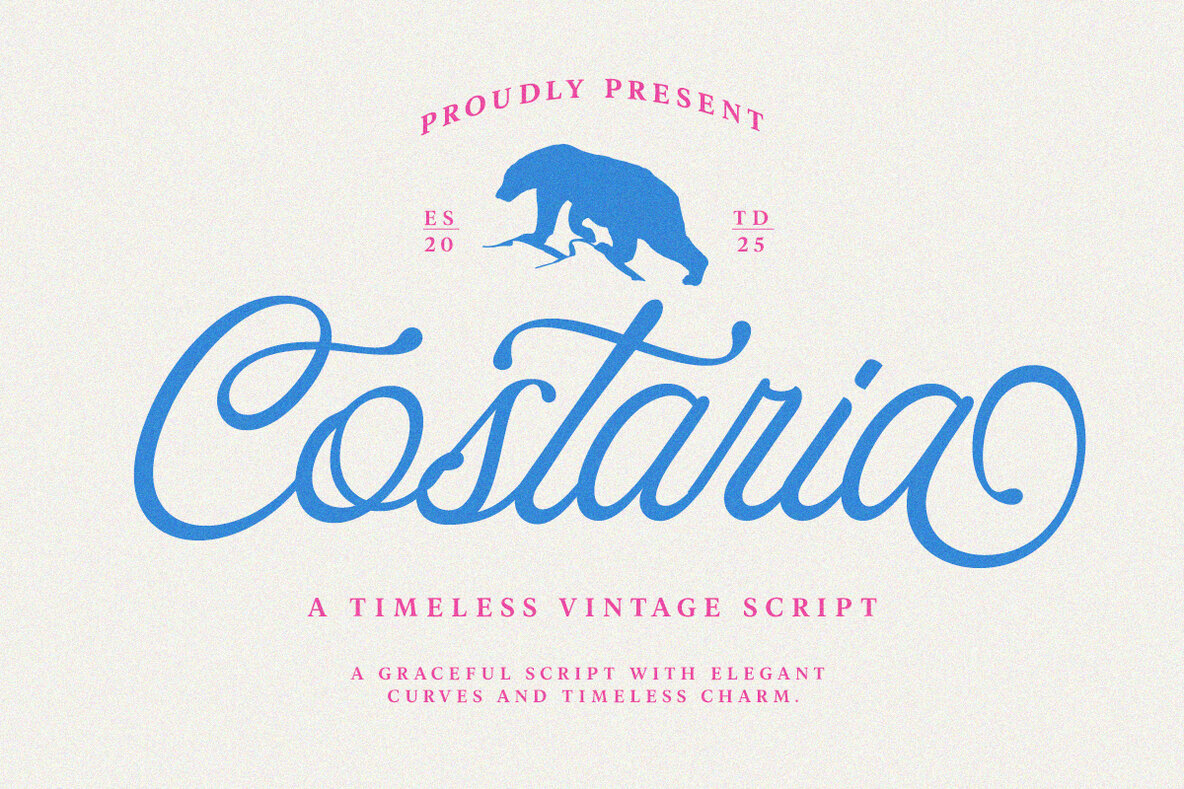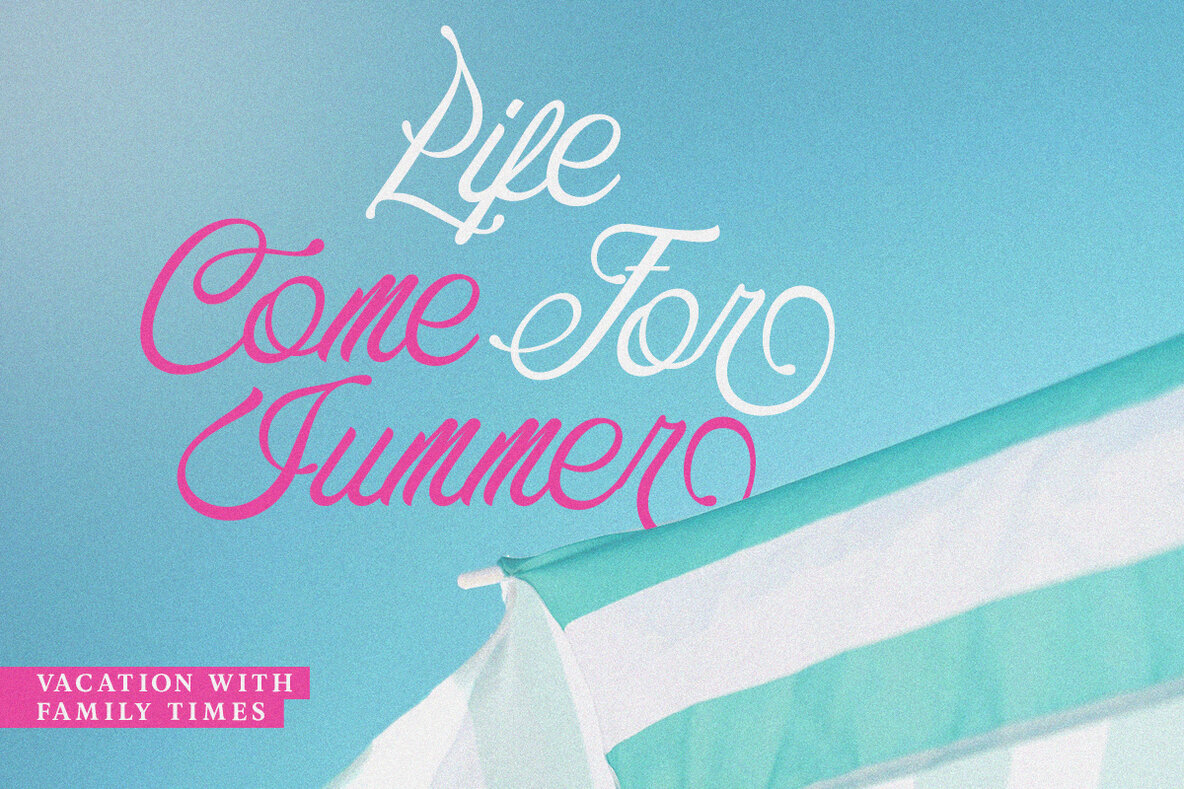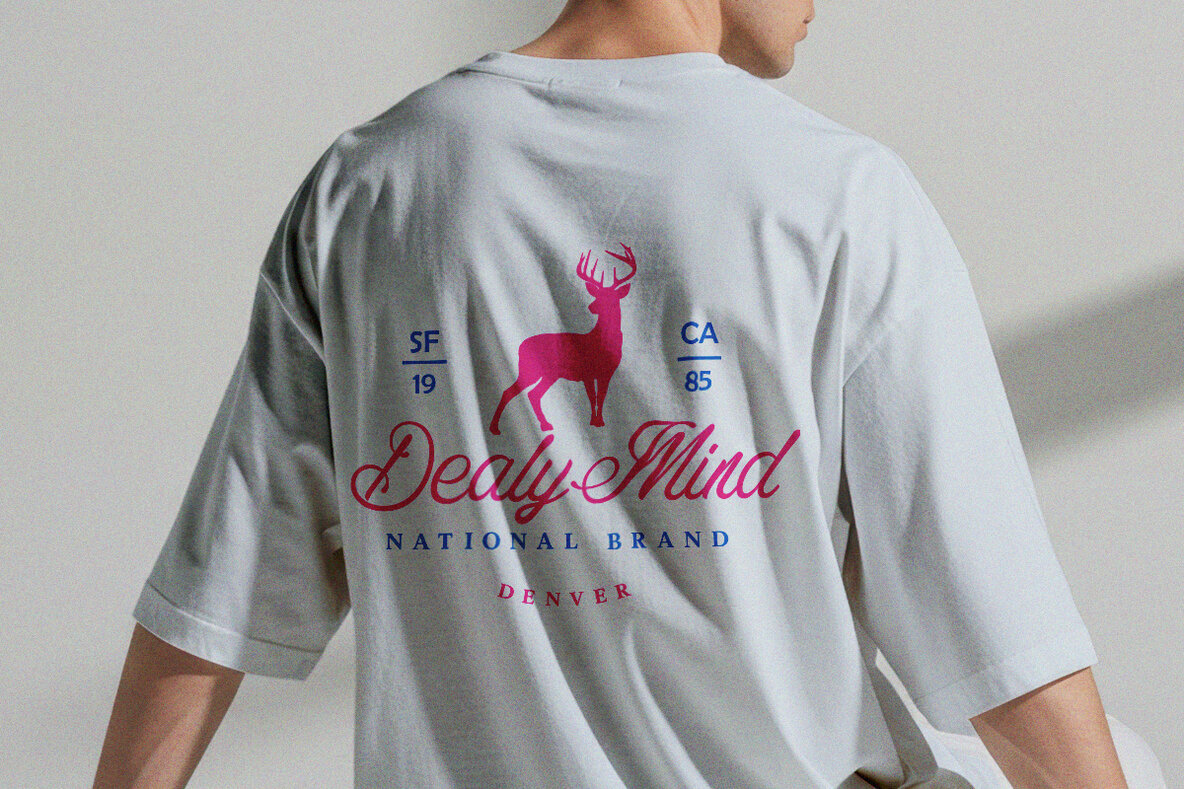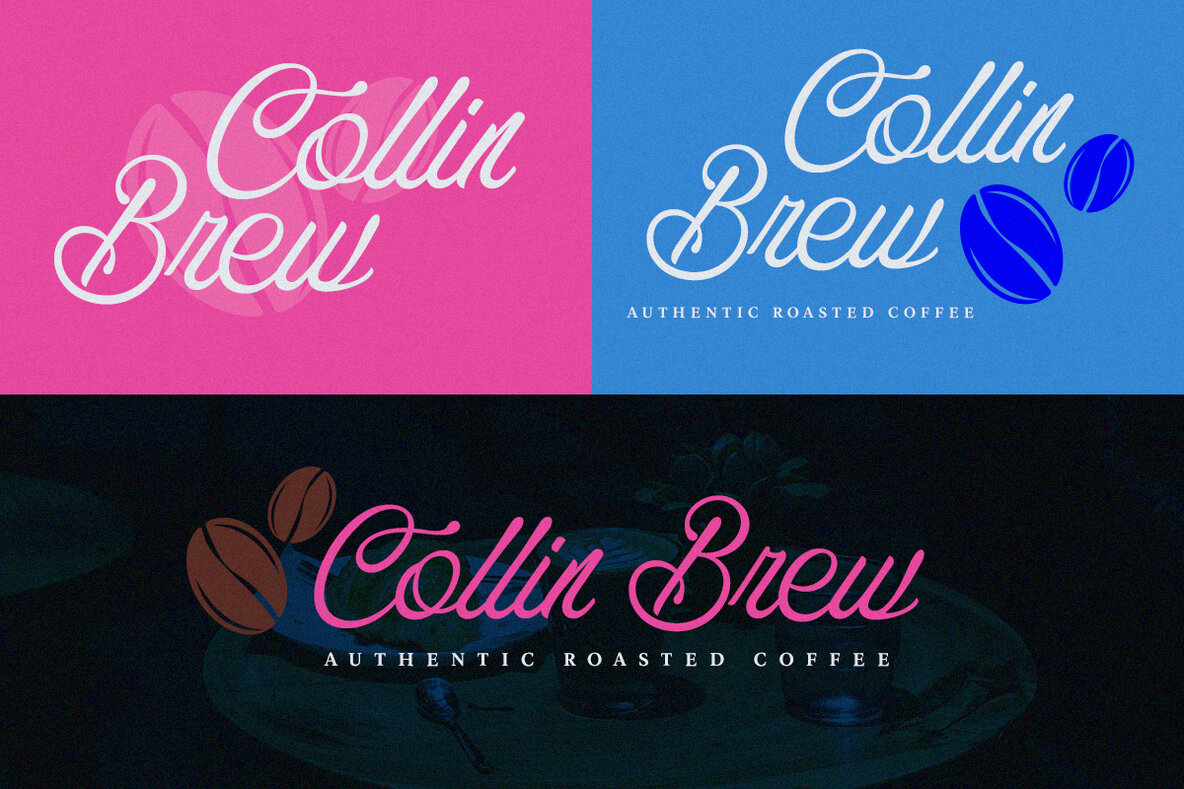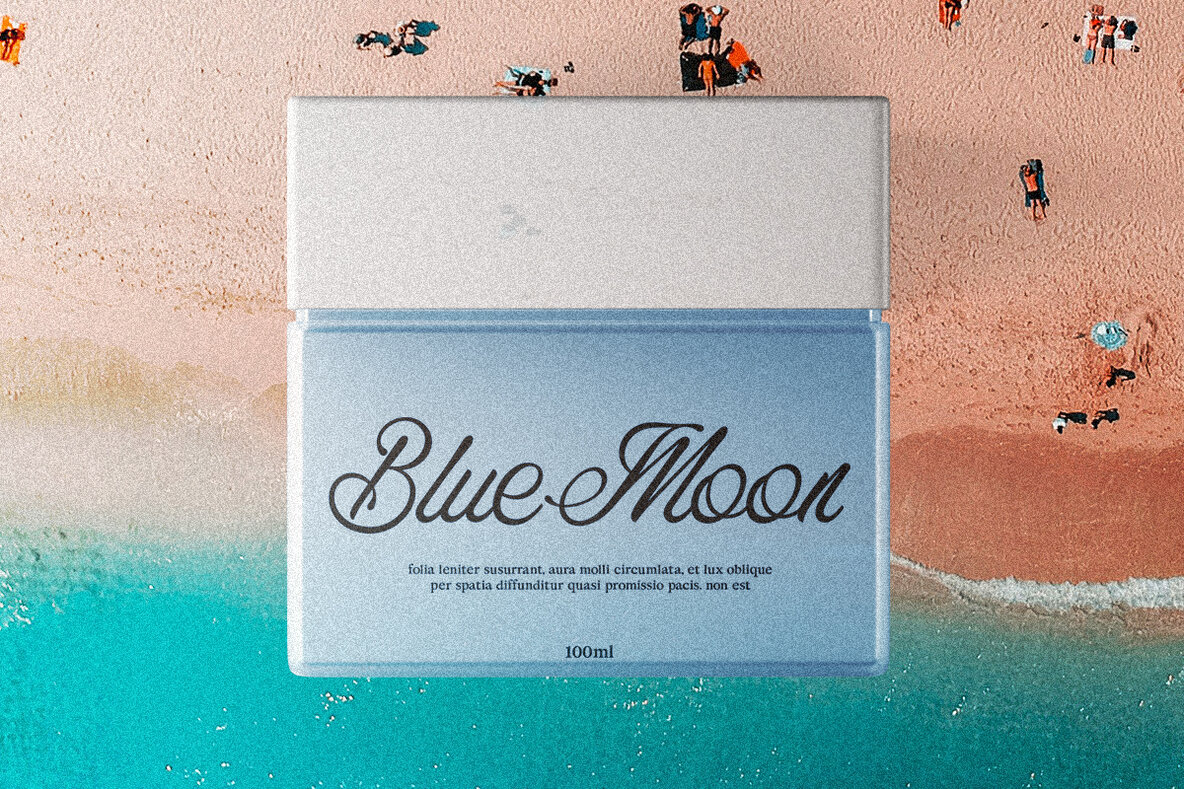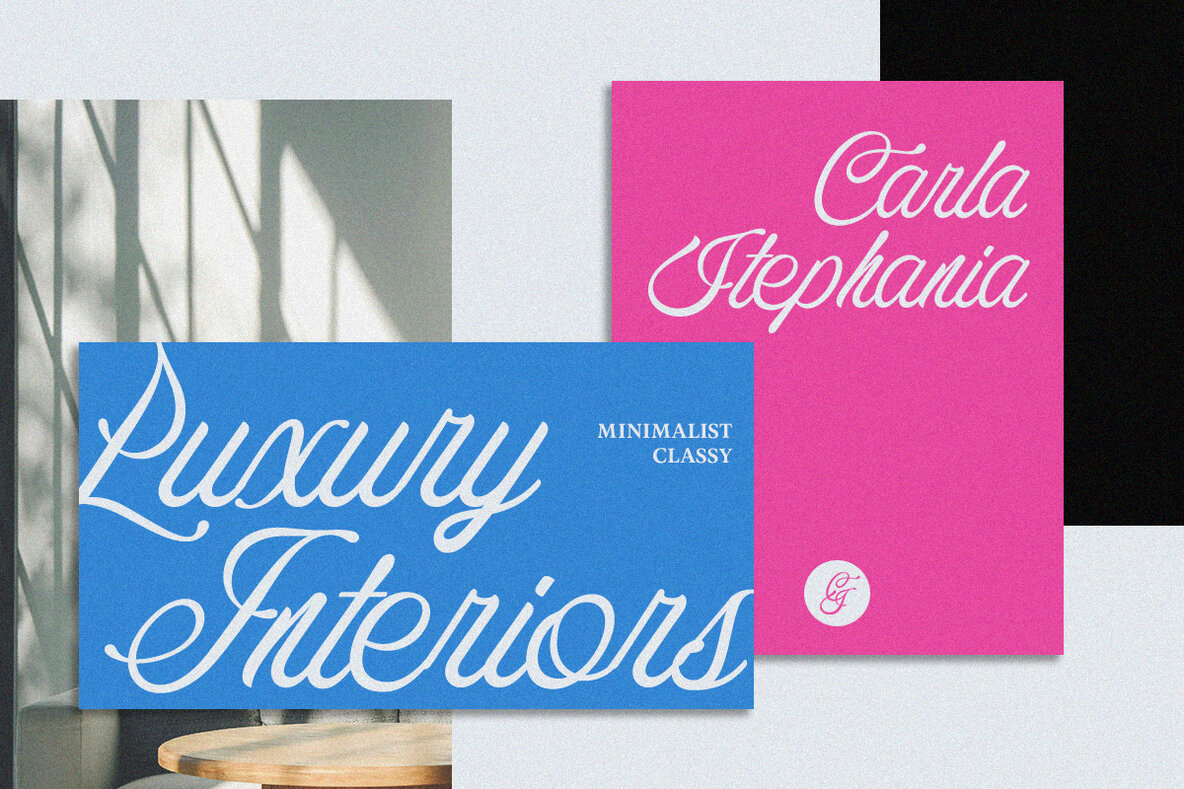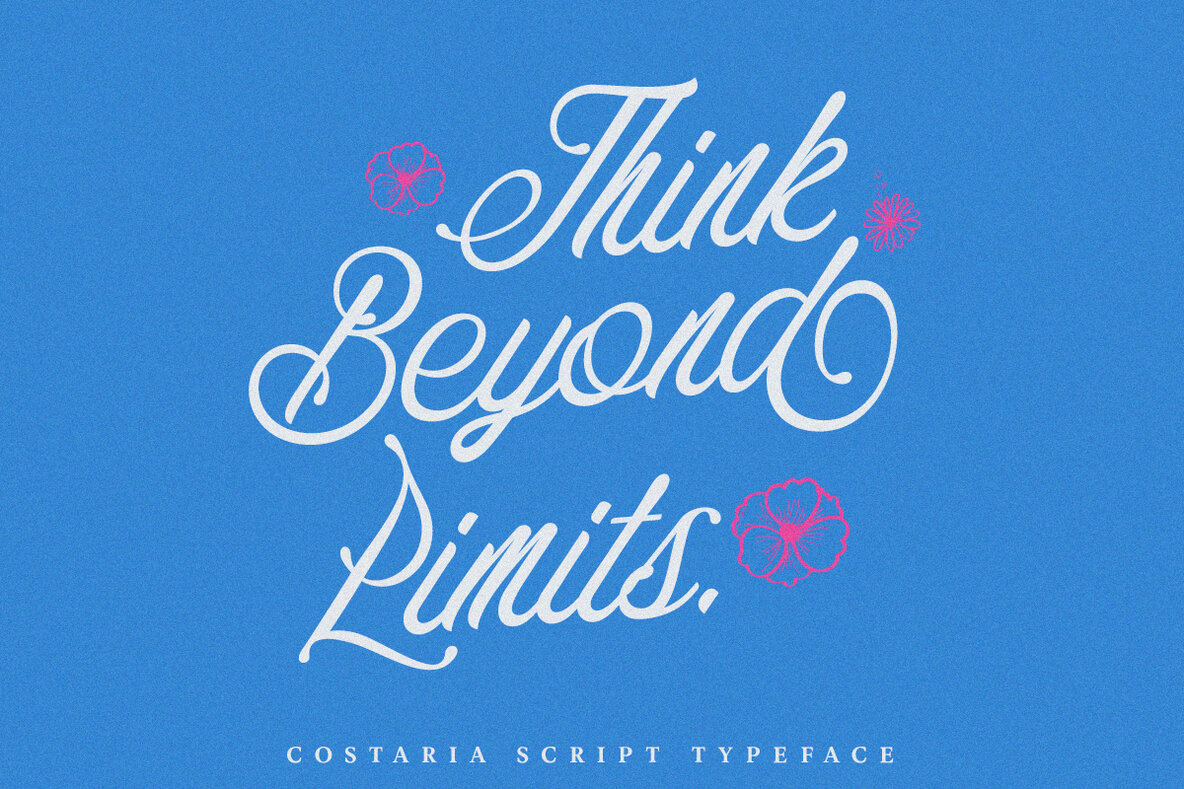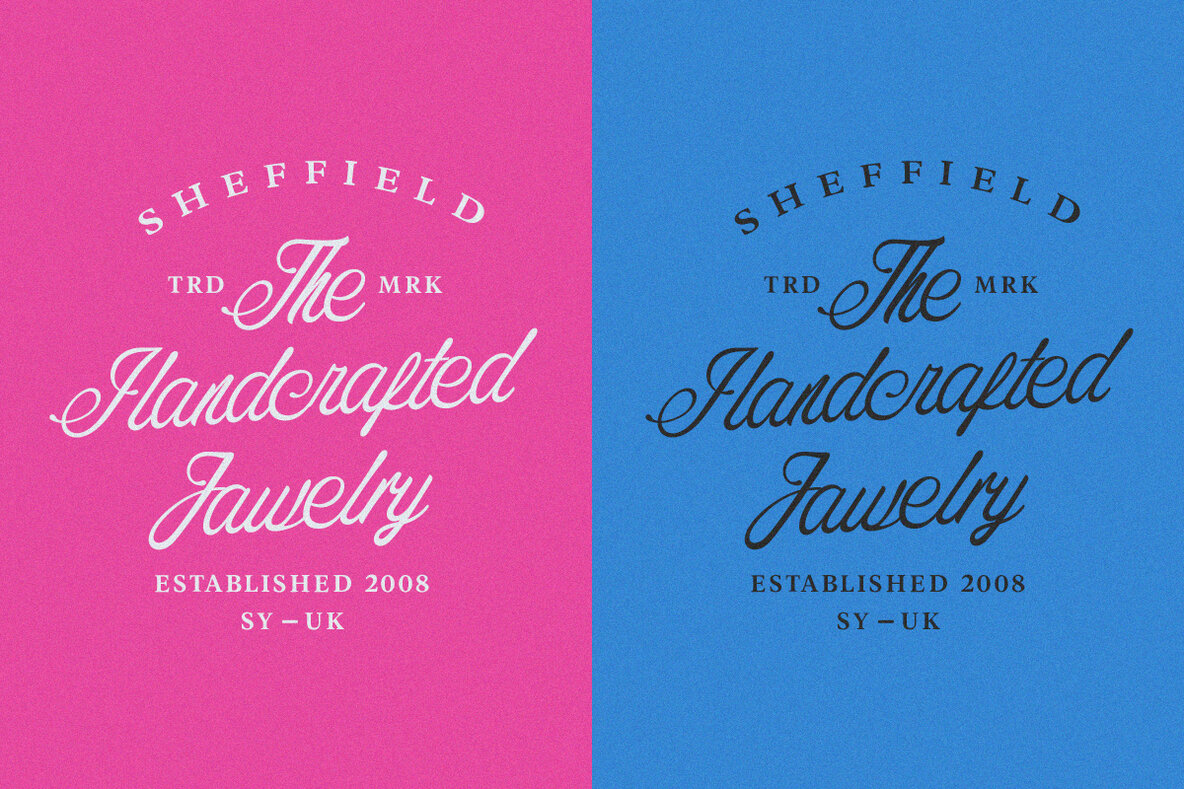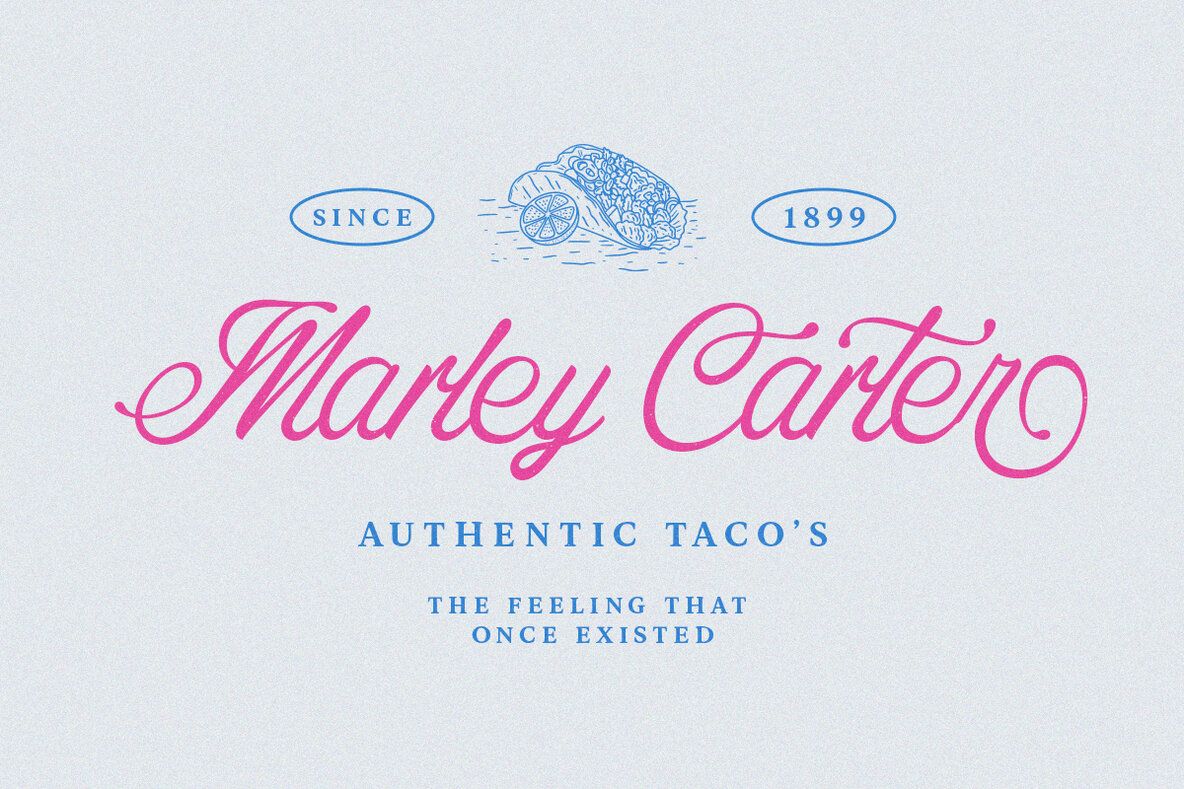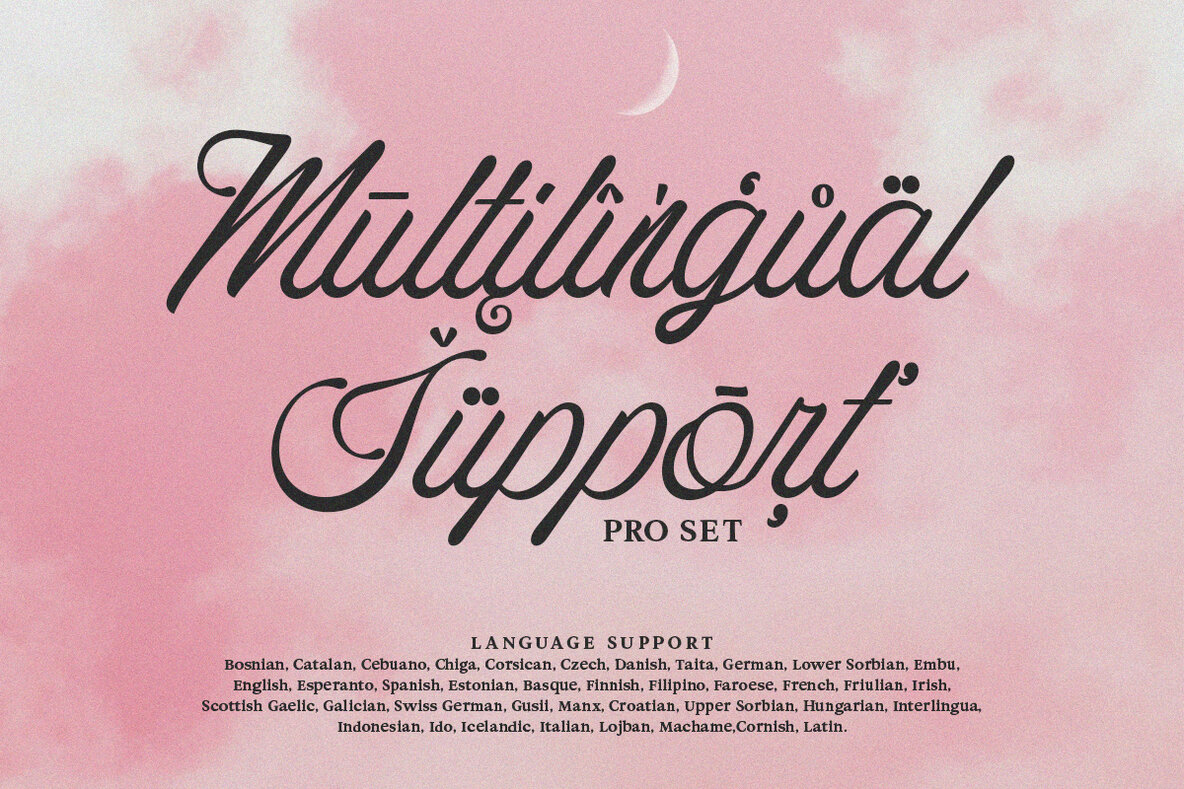
Costaria Script Font
Costaria Script
Costaria stands as a testament to refined typography, marrying modern elegance with classic appeal. This script display font, designed with meticulous attention to detail, transcends ordinary typefaces by offering luxurious style and fluidity. Its graceful letterforms make it an ideal choice for projects that demand distinction and elegance, such as branding, packaging, editorials, invitations, and high-end design endeavors. The font's subtle fluid strokes bring an air of sophistication to logos, wedding stationery, and inspirational graphics, making it an indispensable asset for creative professionals.Costaria: A Sophisticated Script for Elegant Design